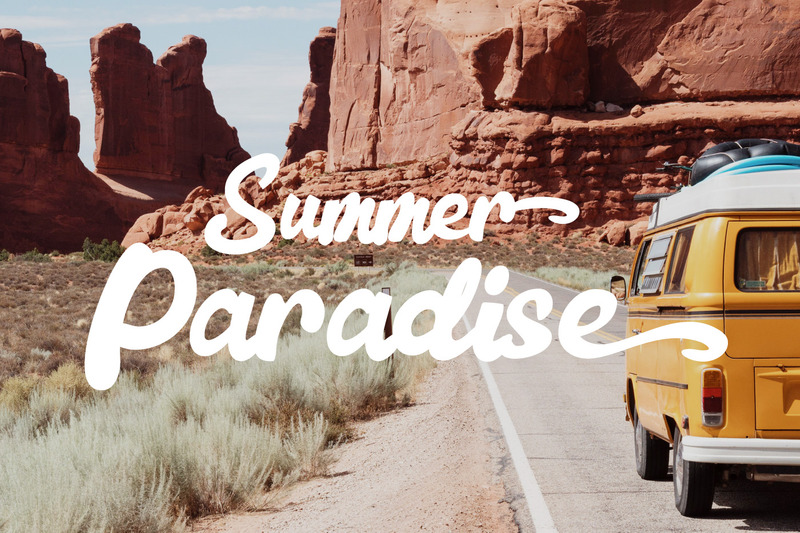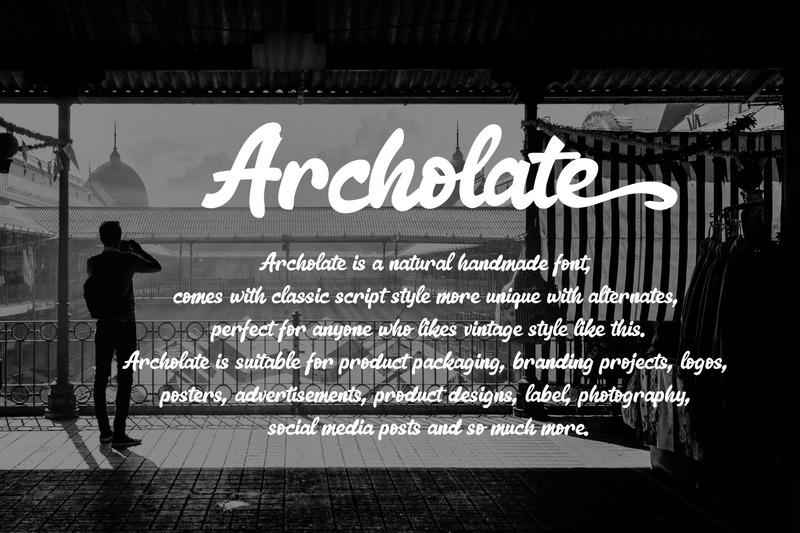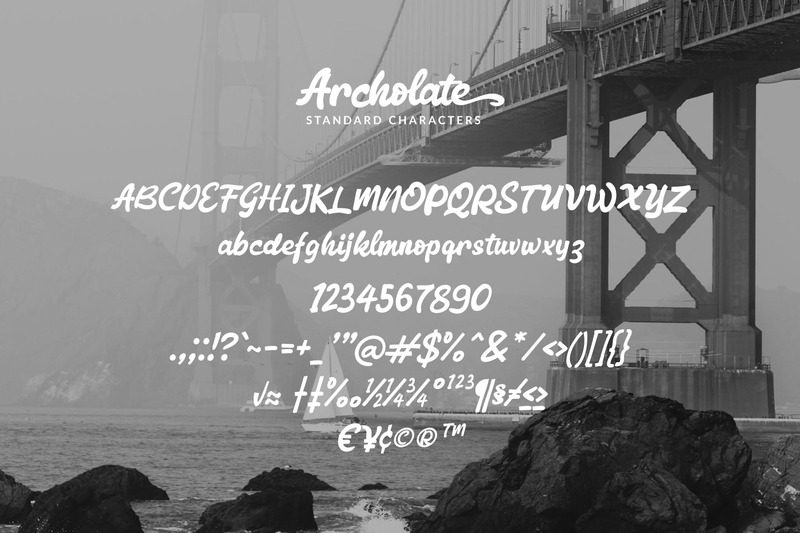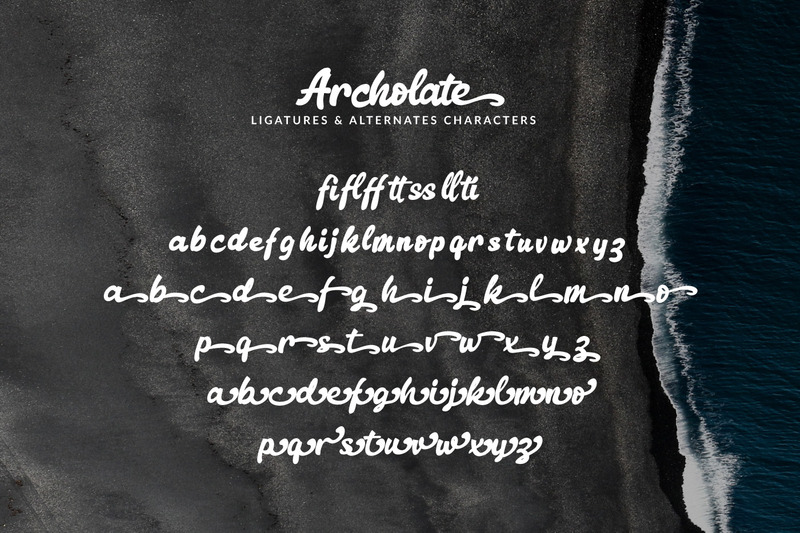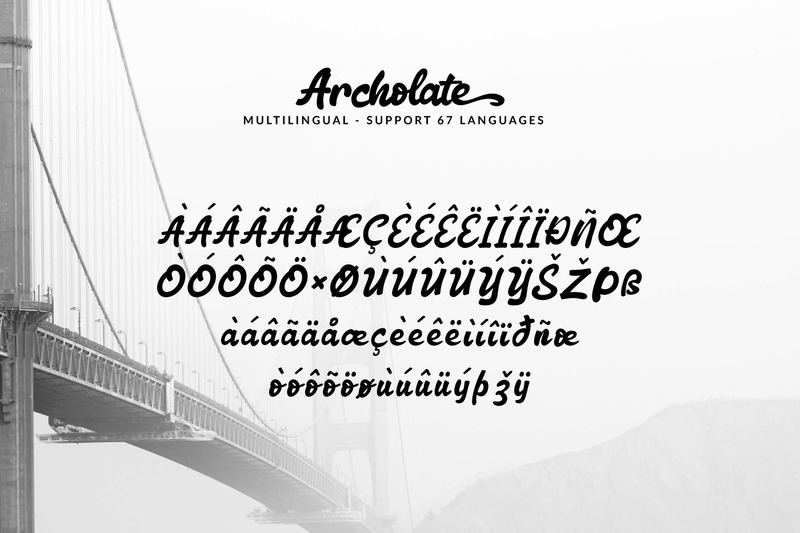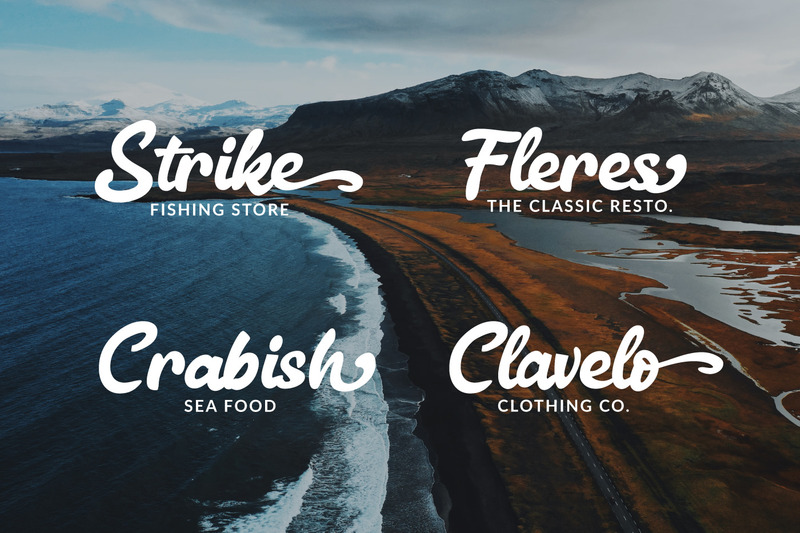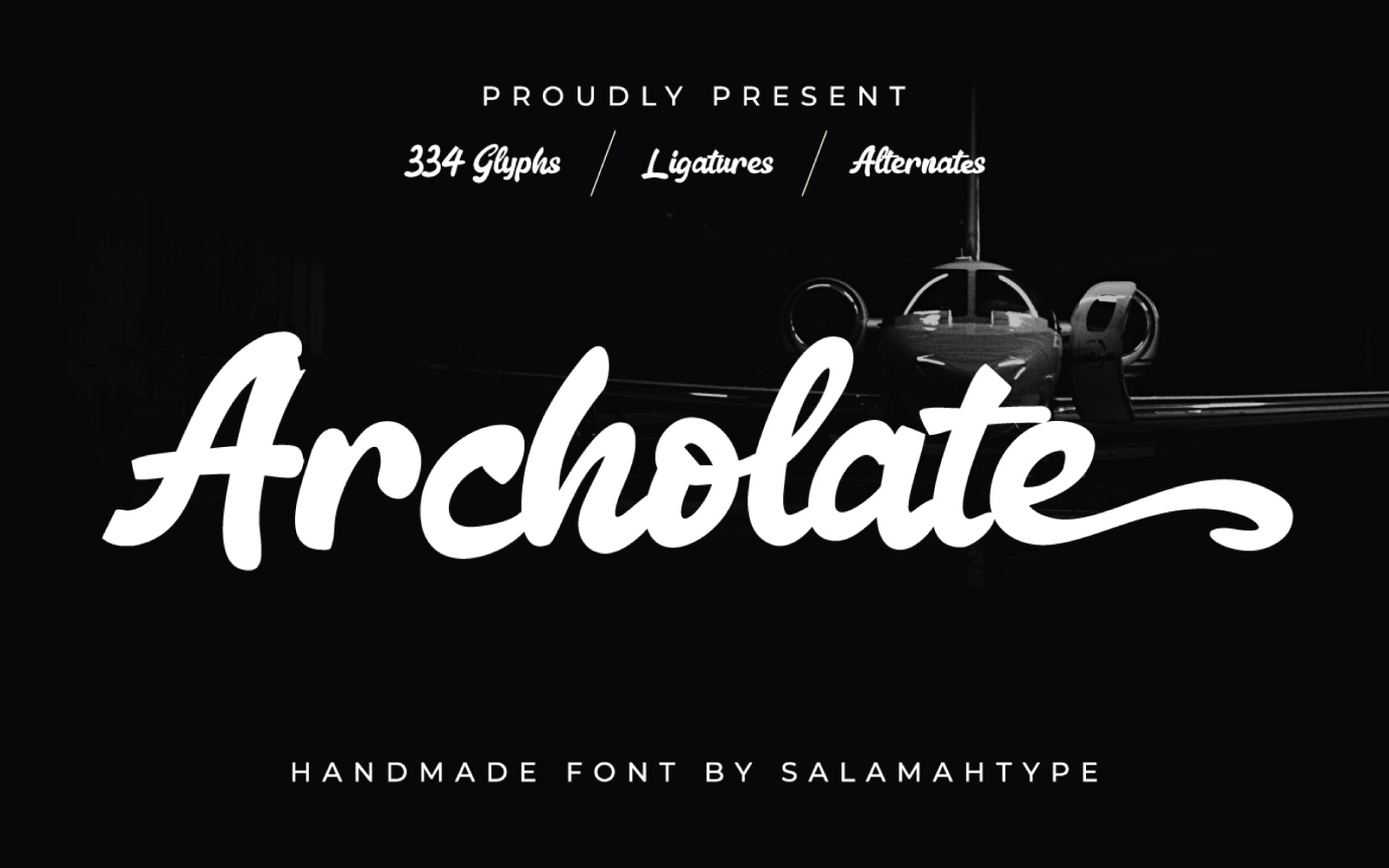
Archolate - Bold Script font
Archolate is a natural handmade font, comes with classic script style more unique with alternates, perfect for anyone who likes vintage style like this. Archolate is suitable for product packaging, branding projects, logos, posters, advertisements, product designs, label, photography, social media posts and so much more.